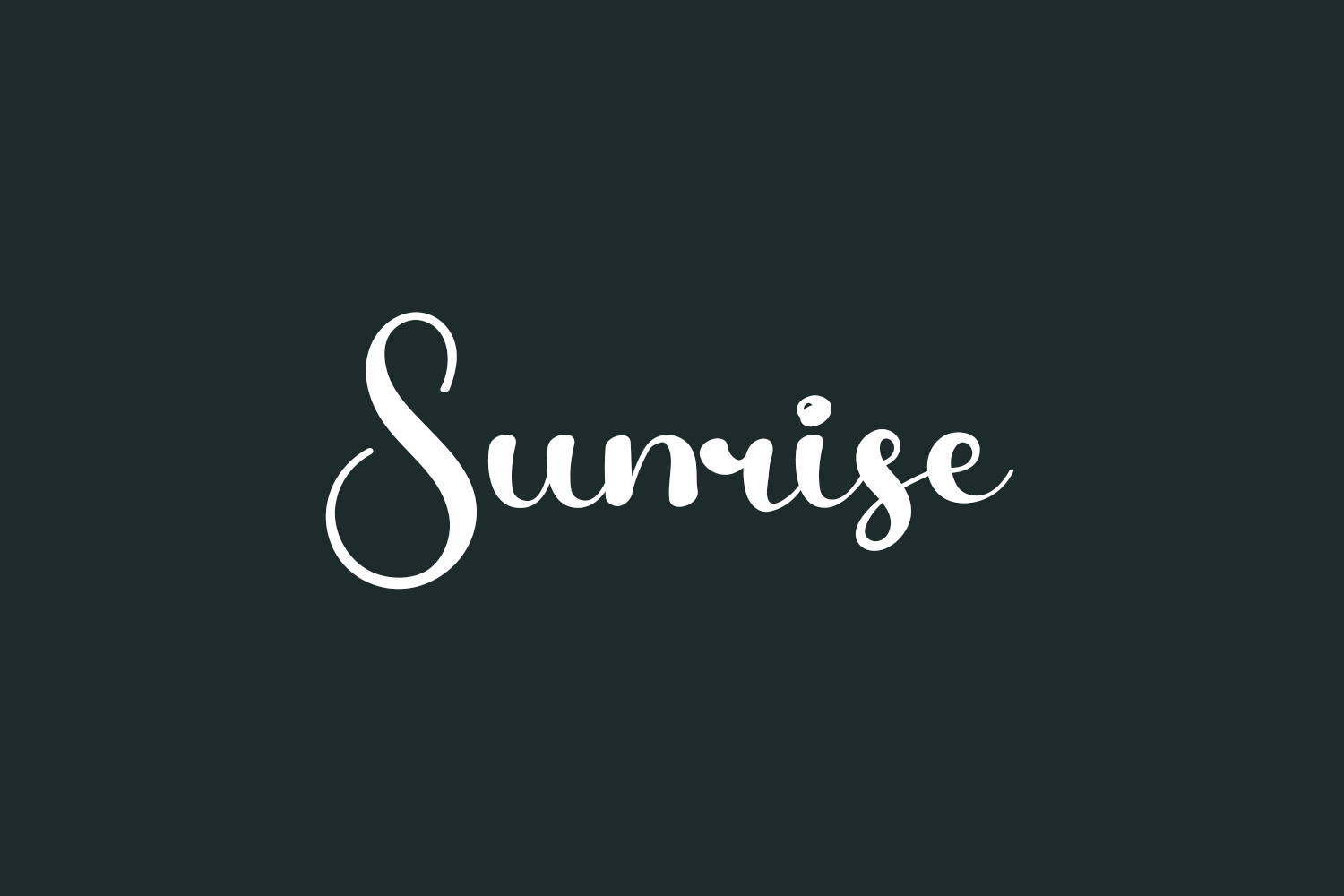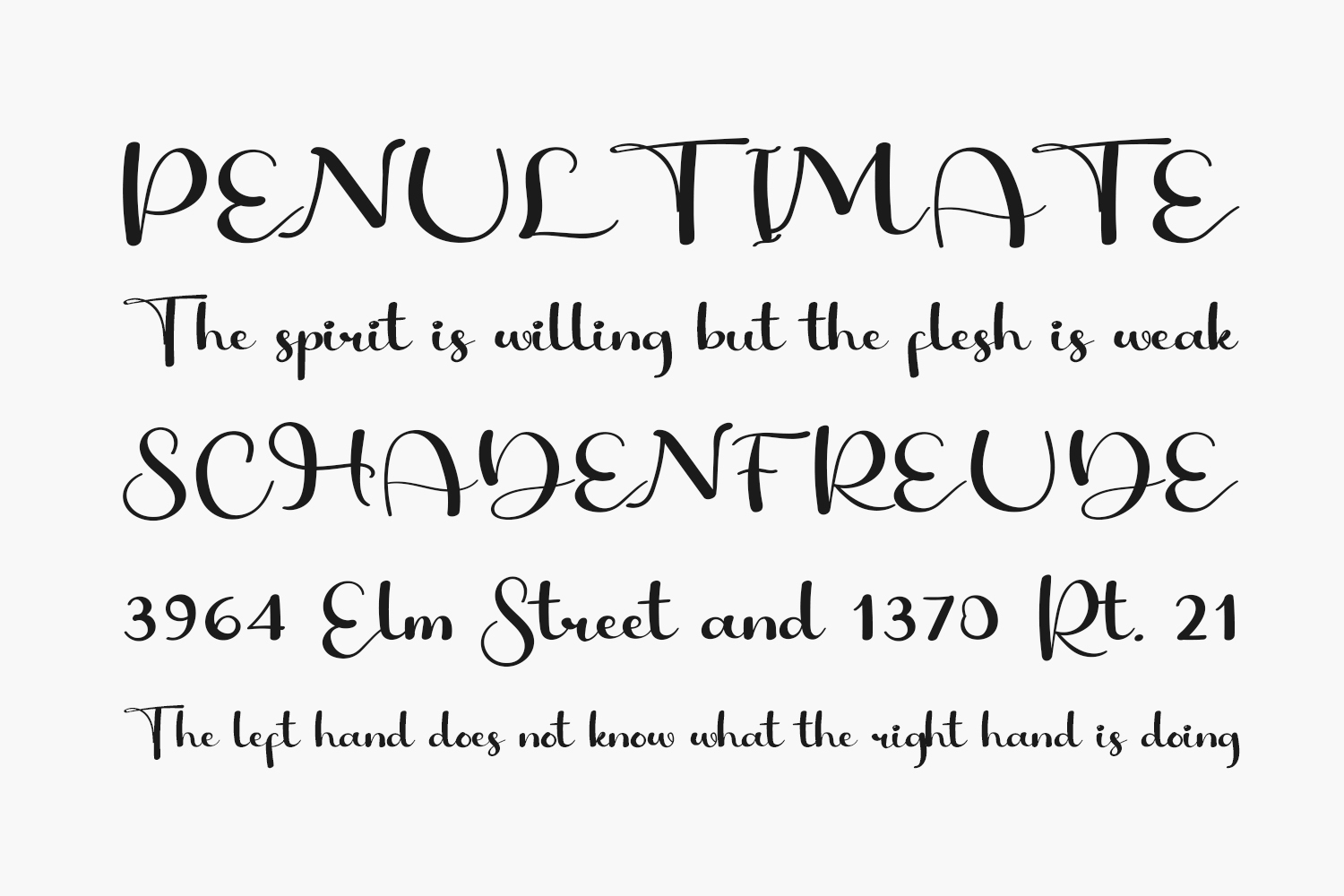
Sunrise Free Font is a flowing handwritten font, described by an elegant touch, perfect for your favorite projects. Fall in love with its incredibly distinct and timeless style and use it to create spectacular designs. Sunrise Free Font was designed by Luluk Surotul and is free for personal use only. Please purchase the full version for commercial use.